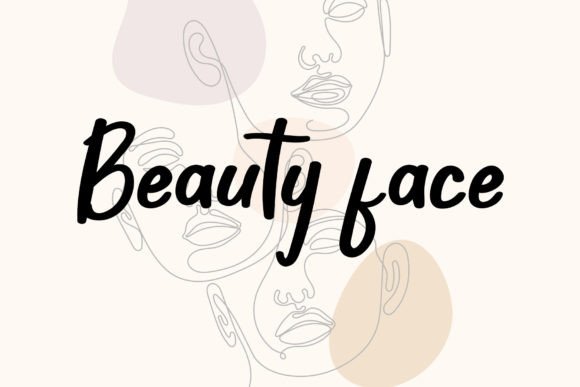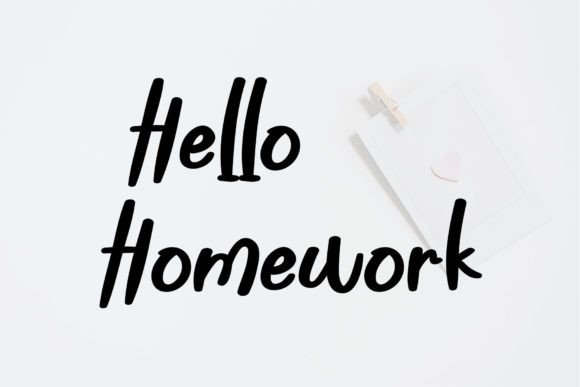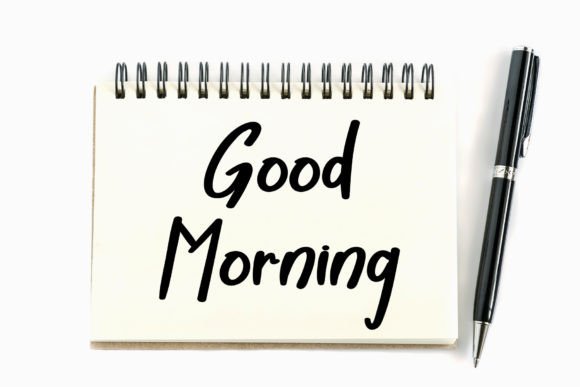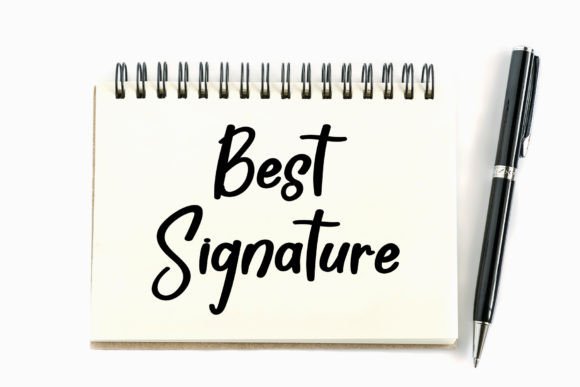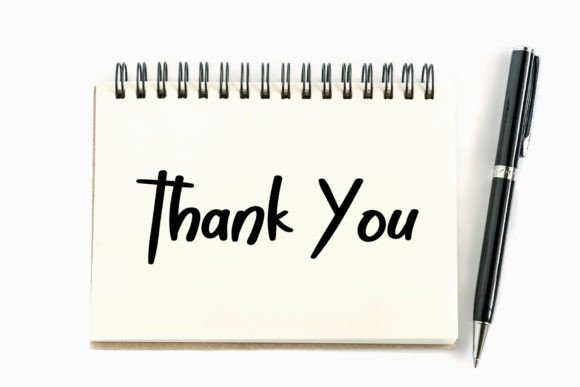
Eyes Font: Elevate Your Designs with Elegance and Timeless Style
Are you on the hunt for a font that exudes elegance, sophistication, and a touch of whimsy? Look no further than Eyes Font, a stunning handwritten font that is sure to capture your heart. With its incredibly distinct and timeless style, Eyes Font is the perfect addition to your favorite projects, allowing you to create spectacular designs that stand out from the crowd.
The Beauty of Eyes Font
Eyes Font is a neat and beautiful handwritten font that boasts an elegant touch, making it an excellent choice for designers and crafters seeking to add a touch of refinement to their work. Its unique and distinctive style is sure to fall in love with, and its versatility ensures that it can be used across a wide range of projects, from branding and advertising to packaging and digital media.
Key Features of Eyes Font
- Elegant and Refined: Eyes Font features an elegant and refined design, perfect for creating sophisticated and high-end designs.
- Handwritten Style: With its handwritten style, Eyes Font adds a touch of personality and whimsy to your designs, making them more approachable and engaging.
- Distinct and Timeless: The font’s incredibly distinct and timeless style ensures that your designs will stand the test of time, remaining fresh and relevant for years to come.
- Versatile: Eyes Font is incredibly versatile, making it suitable for use across a wide range of projects, from digital media to print materials.
Eyes Font is an excellent choice for designers and crafters seeking to elevate their work with a touch of elegance and sophistication. Whether you’re working on a branding project, creating social media graphics, or designing packaging, Eyes Font is the perfect addition to your design toolkit.
Tips for Using Eyes Font
- Pair with Bold Fonts: Pair Eyes Font with bold fonts to create striking contrast and add visual interest to your designs.
- Experiment with Colors: Experiment with different colors to find the perfect combination that complements your brand or project’s aesthetic.
- Use for Headings and Titles: Use Eyes Font for headings and titles to add a touch of elegance and sophistication to your designs.
Why Choose Eyes Font?
So why choose Eyes Font for your next project? Here are just a few reasons:
- Unique Style: Eyes Font boasts a unique and distinctive style that will set your designs apart from the crowd.
- Elegant and Refined: The font’s elegant and refined design makes it perfect for creating high-end designs that exude sophistication.
- Easy to Read: Despite its elegant style, Eyes Font is incredibly easy to read, making it perfect for use in a wide range of projects.
In conclusion, Eyes Font is a stunning handwritten font that is sure to capture your heart. With its incredibly distinct and timeless style, Eyes Font is the perfect addition to your favorite projects, allowing you to create spectacular designs that stand out from the crowd. Whether you’re a designer, crafter, or simply someone who appreciates beautiful typography, Eyes Font is an excellent choice for anyone seeking to elevate their work with a touch of elegance and sophistication.